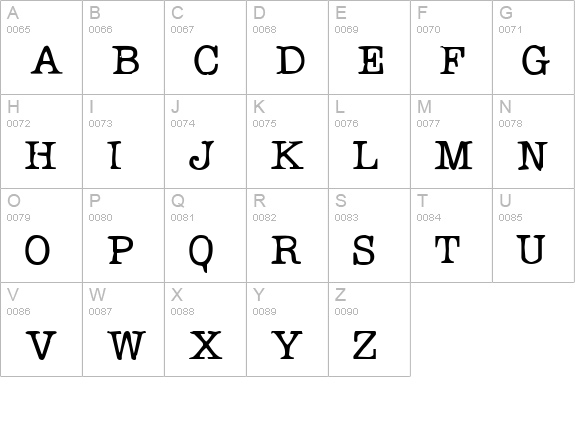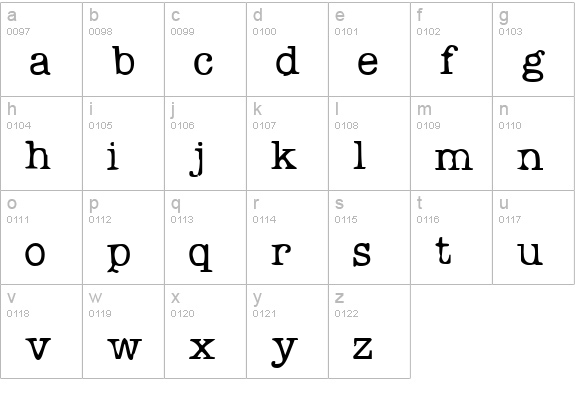
Problem Secretary Normal Font Details
Problem Secretary Normal is the standard, neutral variant in the Problem typeface family \xE2\x80\x94 well suited to general body text, paragraphs, and standard typographic work.
Problem Secretary Normal font is a stylish and modern typeface that is perfect for a wide range of design projects. With its clean lines and sleek appearance, this font exudes professionalism and sophistication. Whether you're working on a business presentation, a website design, or a creative project, Problem Secretary Normal font is sure to make a statement. What sets Problem Secretary Normal font apart is its versatility and readability. It is easy on the eyes and can be used for both headlines and body text. The font's timeless design ensures that it will remain relevant for years to come. Best of all, Problem Secretary Normal font is freely available to download at FontsMarket.com. So why wait? Add this elegant and modern font to your collection today and take your designs to the next level.